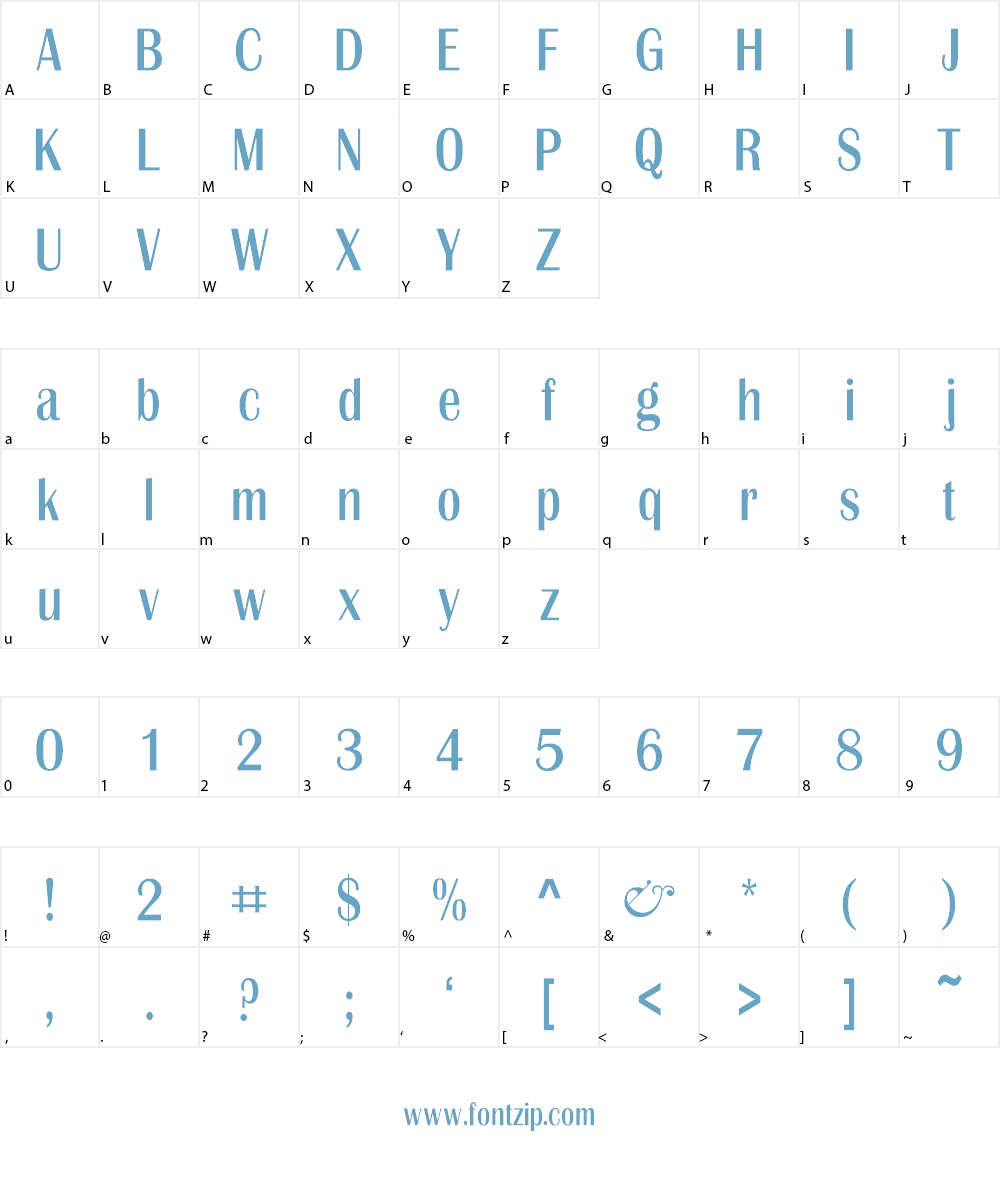
The shareware ESOTERIK font is designed to work with any system or application that supports version 7.0.0 of the Unicode standard.
The full version contains around 1500 characters that include Astro, Alchemy, Enochian American Indian, Special Icons, Numbered Circles and Arrows.